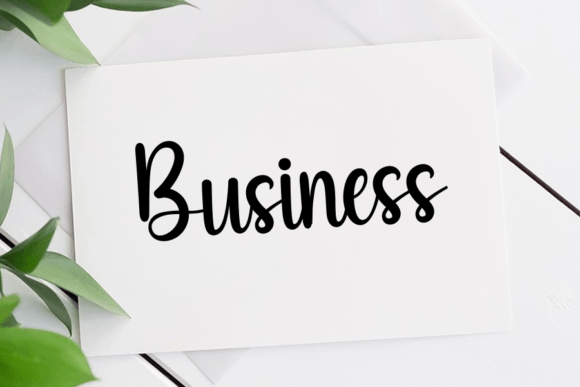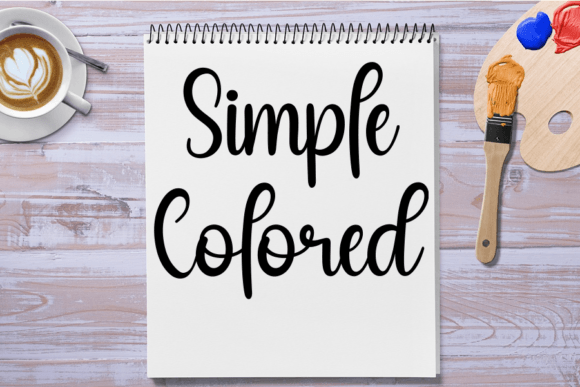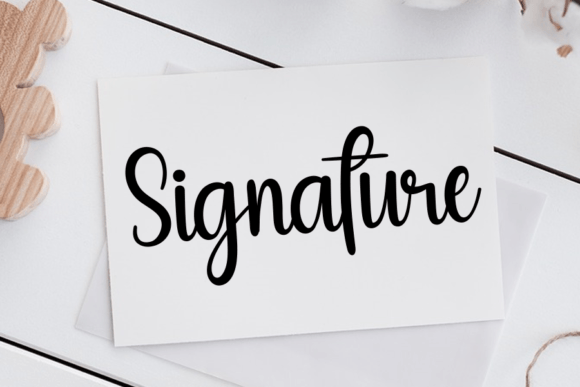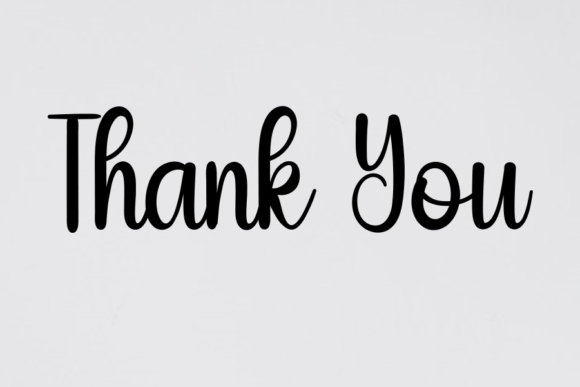
Introducing Black Pastel Font: The Fun and Quirky Handwritten Font You Need
Are you tired of using the same old fonts in your designs? Do you want to add a touch of personality and whimsy to your projects? Look no further than Black Pastel Font! This fun and quirky handwritten font is perfect for designers and crafters who want to add a modern and joyful touch to their work.
What is Black Pastel Font?
Black Pastel Font is a unique and eye-catching handwritten font that is sure to make your designs stand out. With its bold and expressive letters, this font adds a playful and carefree touch to any project. Whether you’re working on a logo, a poster, or a digital graphic, Black Pastel Font is the perfect choice for anyone who wants to add a little bit of fun and personality to their design.
Key Features of Black Pastel Font
- Handwritten style: Black Pastel Font has a unique, handwritten style that gives it a personal and quirky feel.
- Bold and expressive letters: The font features bold and expressive letters that are sure to grab attention.
- Modern and joyful touch: Black Pastel Font adds a modern and joyful touch to any design, making it perfect for projects that require a playful and carefree vibe.
- Easy to read: Despite its bold and expressive style, Black Pastel Font is easy to read, making it perfect for use in a variety of design projects.
Why Use Black Pastel Font?
So why should you use Black Pastel Font in your designs? Here are just a few reasons:
- Adds personality to your designs: Black Pastel Font is the perfect way to add a little bit of personality and whimsy to your designs.
- Perfect for creative projects: Whether you’re working on a logo, a poster, or a digital graphic, Black Pastel Font is perfect for creative projects that require a playful and carefree vibe.
- Easy to use: Black Pastel Font is easy to use and can be easily integrated into a variety of design projects.
- Versatile: Black Pastel Font can be used in a variety of design projects, from logos and posters to digital graphics and more.
How to Use Black Pastel Font
Using Black Pastel Font in your designs is easy! Here are a few tips to get you started:
- Pair it with other fonts: Black Pastel Font pairs well with other fonts, so don’t be afraid to experiment with different combinations.
- Use it for headings and titles: Black Pastel Font is perfect for use in headings and titles, where its bold and expressive style can really shine.
- Add it to your branding: If you’re looking to add a little bit of personality to your branding, Black Pastel Font is a great choice.
In conclusion, Black Pastel Font is a fun and quirky handwritten font that is sure to add a joyful and modern touch to your designs. With its bold and expressive letters, easy-to-read style, and versatile nature, this font is perfect for designers and crafters who want to add a little bit of personality and whimsy to their work. So why not give Black Pastel Font a try? You won’t be disappointed!
Black Pastel is a fun and quirky handwritten font. It adds a joyful and modern touch to each of your designs. Add it confidently to your projects, and you won’t be disappointed.